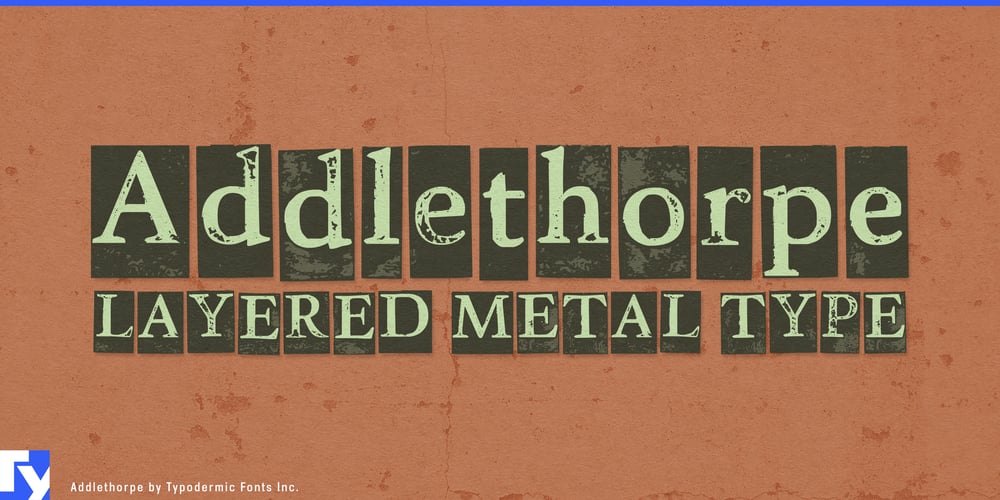
Addlethorpe
Addlethorpe font
Addlethorpe Font Family was designed by Ray Larabie and published by Typodermic. Addlethorpe contains 4 styles and family package options. Elevate your designs with Addlethorpe, a sophisticated three-layer metal typeface that redefines typographic elegance. This meticulously crafted font family offers a unique interplay of foreground, fill, and background layers, providing designers with unparalleled creative flexibility.Addlethorpe’s versatility shines across both print and digital mediums. The foreground layer, Addlethorpe 1, commands attention on light backgrounds with its intricate detailing, while Addlethorpe 2 serves as the perfect fill layer, adding depth and chromatic richness to the elevated letterforms. Completing the trio, Addlethorpe 3 provides a rectangular background that unifies the design, its clean lines and bold presence serving as the ideal foundation.Beyond its striking aesthetics, Addlethorpe boasts intelligent functionality. OpenType-aware applications unlock access to both lining and old-style numerals, allowing for nuanced typesetting. The typeface’s letter pair ligatures artfully break the monotony of repeated characters, enhancing readability and visual appeal. For web applications, Addlethorpe Web offers optimized performance with faster load times and streamlined forms, ensuring a seamless user experience without compromising on style.Addlethorpe’s linguistic versatility is equally impressive, supporting a wide range of Latin-based European writing systems. From Afrikaans to Zulu, this typeface maintains its distinctive character across diverse languages, making it an invaluable asset for international design projects.The complexity and customization potential of Addlethorpe invite thoughtful application. Designers are encouraged to explore its layered possibilities, taking the time to fine-tune each element for maximum impact. The result is typography that doesn’t merely communicate—it captivates.For those seeking to push the boundaries of conventional design, Addlethorpe offers a sophisticated toolkit. Its blend of classic metal type aesthetics with modern digital flexibility creates a typeface that’s both timeless and innovative. Embrace the multifaceted nature of Addlethorpe, and watch as your typographic expressions transcend the ordinary, leaving a lasting impression on your audience.